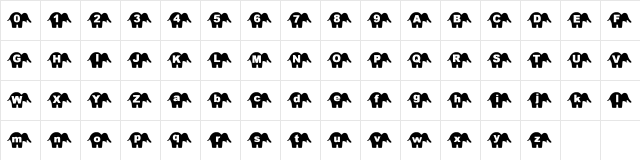
sbelephant Regular
Design Context for sbelephant Typeface
sbelephant is a composed and adaptable typeface that performs quietly and consistently across a wide range of design contexts.